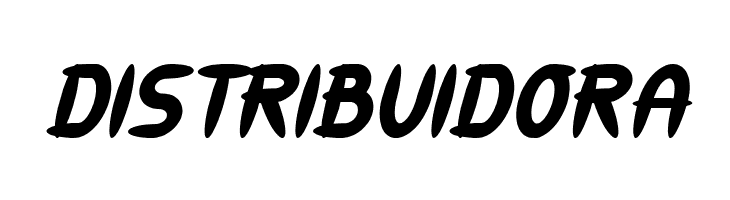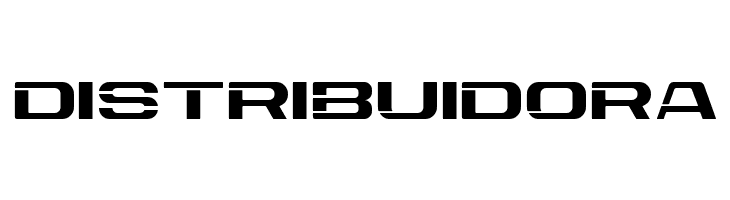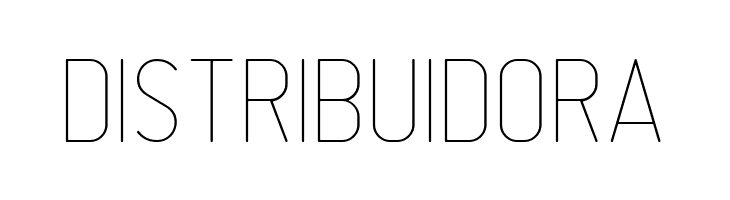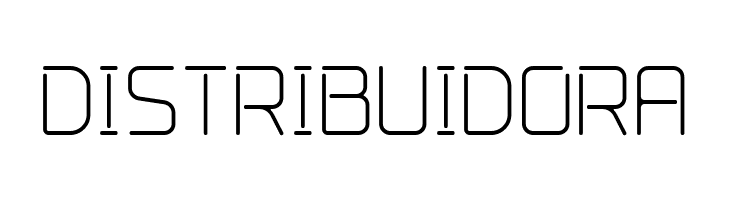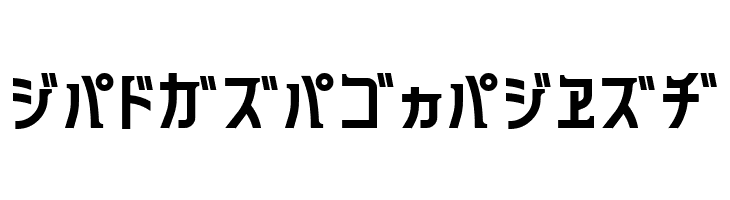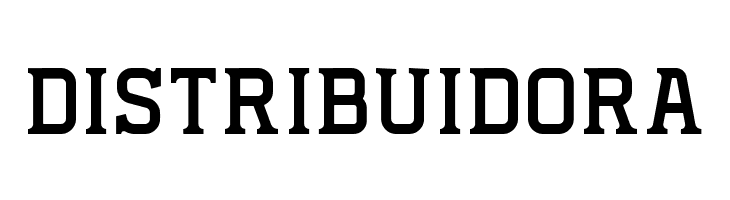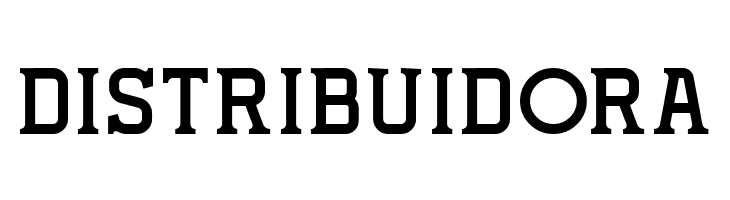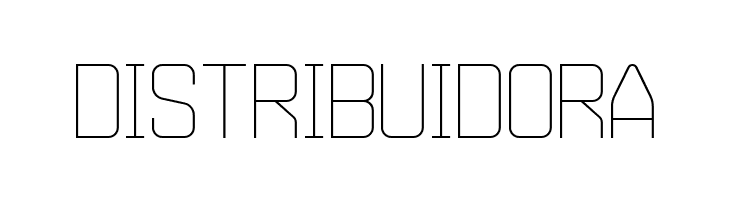
A modern, ultra-light, rounded font with a minimalist design.
A modern, ultra-light geometric font with a sleek and minimalistic design.
A bold, futuristic font with geometric shapes and strong presence.
A hand-drawn, twig-like font with an organic, rustic style.
A bold slab serif font with a strong, authoritative appearance.
A bold slab serif font with strong, block-like serifs and a robust design.
Bold, geometric sans-serif Japanese font with strong, clean lines.
A modern, geometric font with clean lines and a minimalist style.
A modern, geometric font with clean lines and balanced spacing.
A dot matrix style font with a digital and modern aesthetic.
A bold, rounded font with a modern and approachable style.
A futuristic, geometric font with sharp angles and a mechanical feel.
A decorative font with characters illustrated as various alcoholic beverages.
A bold, geometric font with modern and edgy characteristics.
Bold, geometric font with a modern, futuristic style.
A pixelated, retro-style font inspired by early digital displays.
A playful, informal handwritten font with irregular strokes and a casual appearance.
A modern, geometric sans-serif font with clean lines and uniform stroke width.
A whimsical, eclectic font with playful, decorative characters.
A playful and whimsical collection of hand-drawn doodles and handwritten elements.
A playful, handwritten-style font with a casual and whimsical feel.
A pixelated, blocky font inspired by retro digital displays.
A modern serif font with playful serifs and dynamic character forms.
A bold, playful font with dynamic, irregular strokes.
A bold, playful font with thick, rounded strokes and a hand-drawn appearance.
A bold, italic font with dynamic and fluid strokes, perfect for impactful designs.
A geometric, pixelated font with a futuristic, digital aesthetic.
A bold, geometric font with a digital, pixelated style.
A bold, distressed font with a rugged, vintage appearance.
Whimsical cupcake-themed decorative font with hand-drawn charm.